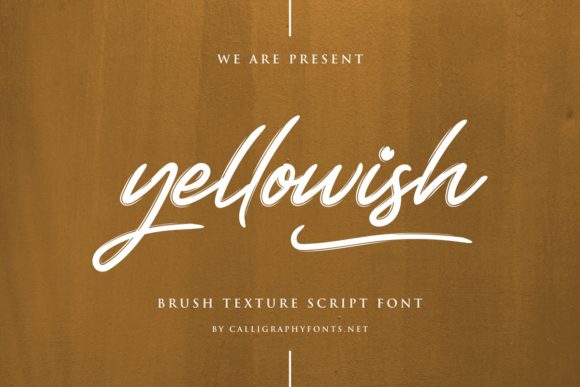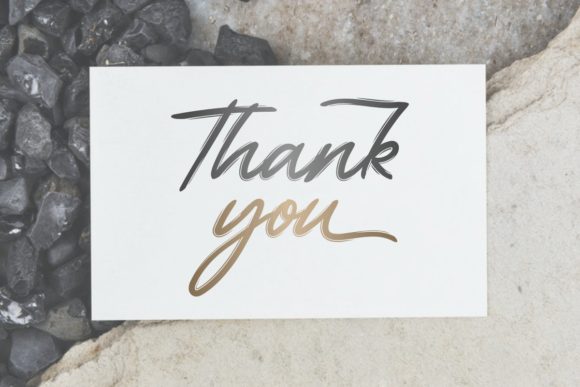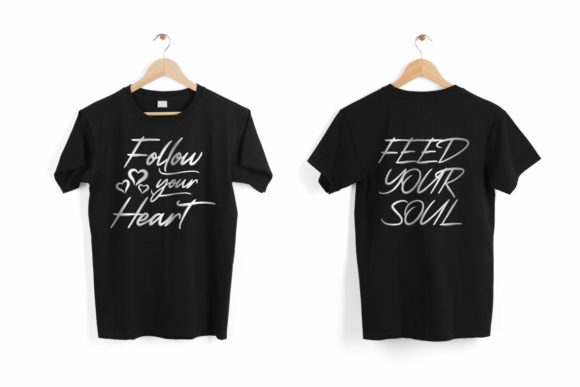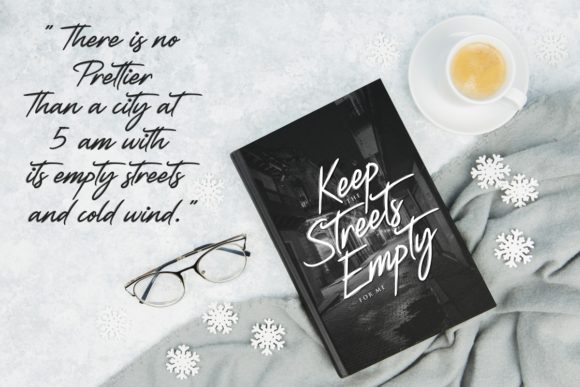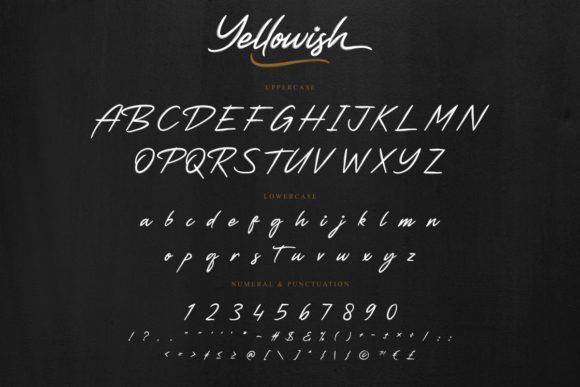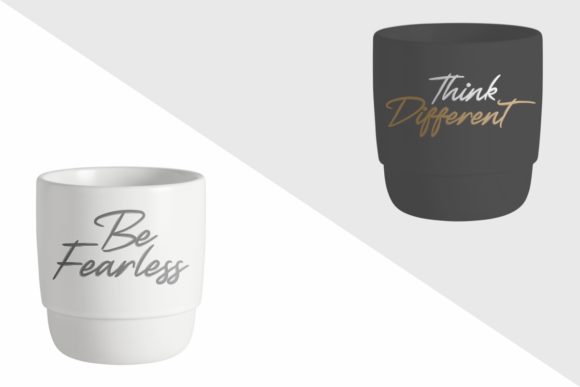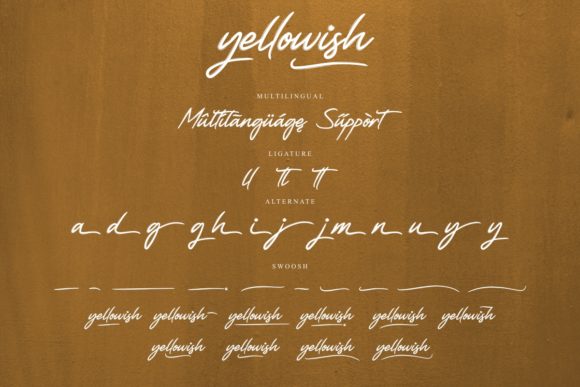
Yellowish Font
About Yellowish Font
Yellowish is a flowing and glamorous handwritten font. Joyful and trendy, this font was masterfully designed to become your top choice for any creative idea!